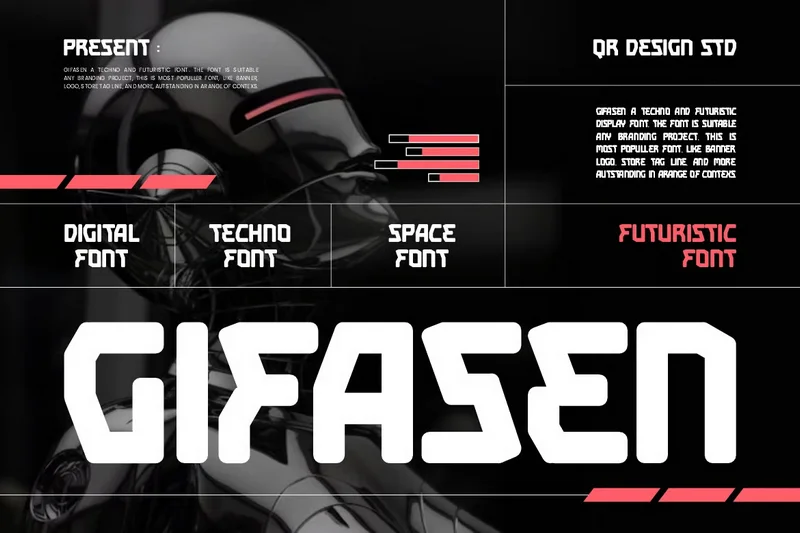
Gifasen – Techno Font
Gifasen Font is a bold and authentic display font. The font is suitable for any branding project like poster, logo, sport, and many more. Outstanding in a wide range of contexts.